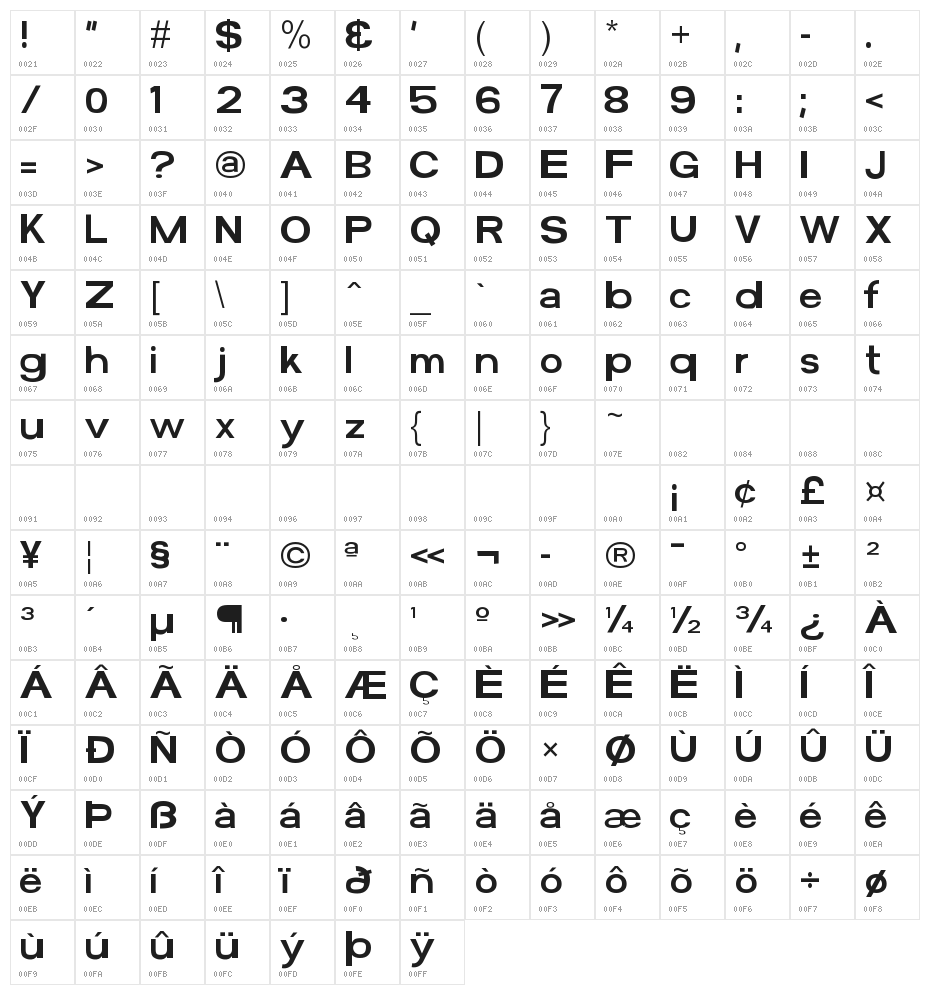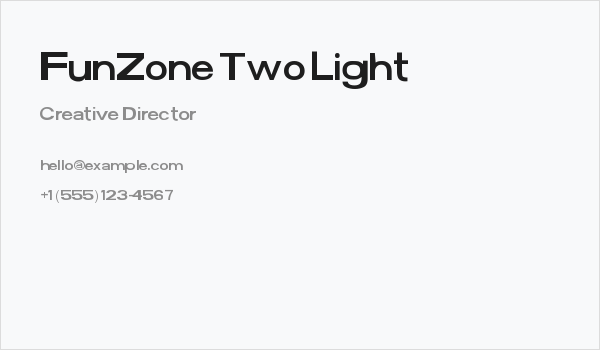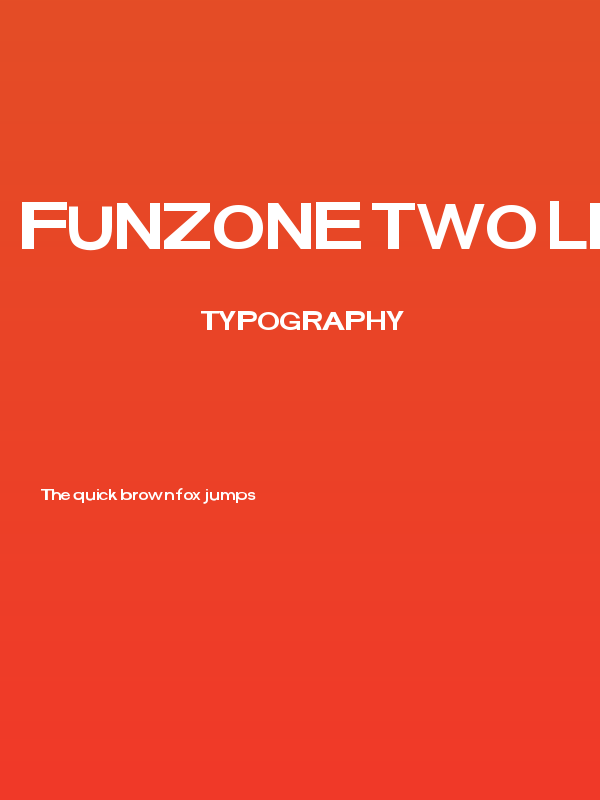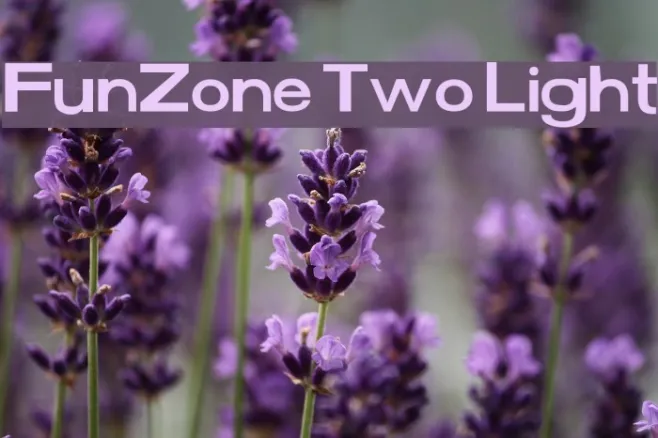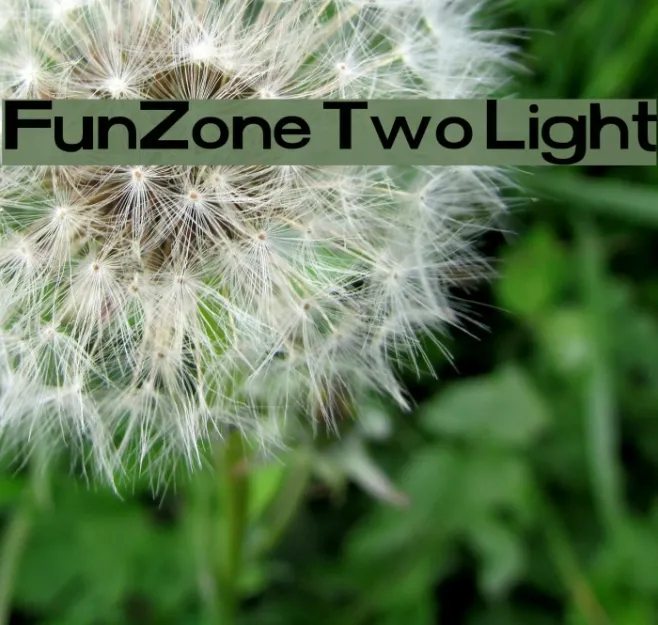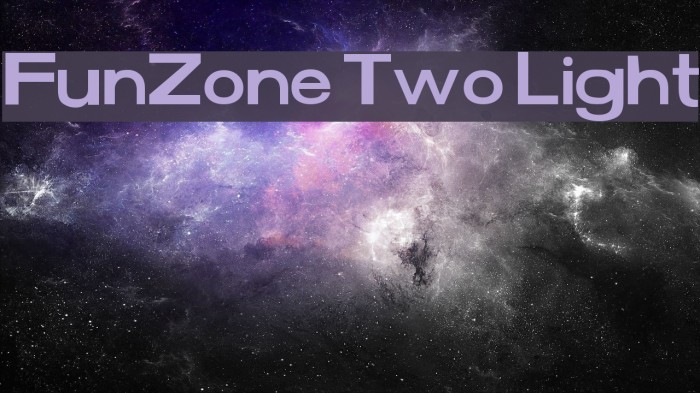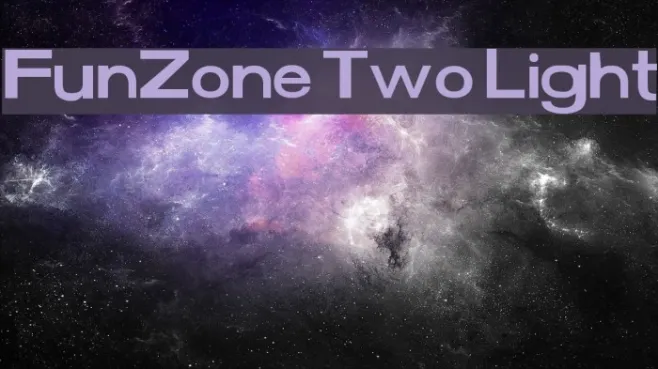
FunZone Two Light Font
FunZone Two Light Description
This font presents a clean and modern aesthetic with a sans-serif style. The characters are bold and uniform, offering a consistent and professional appearance. The uppercase and lowercase letters are well-proportioned, with a slight geometric influence that enhances readability. The numerals are clear and distinct, making them suitable for various applications. Special characters are included, maintaining the font's cohesive look. This font is versatile, ideal for both digital and print media, ensuring clarity and impact.
| Use Case | Headlines, Logos, Digital Media |
| Proposed Projects | Ideal for branding, advertising, web design, and editorial projects. |